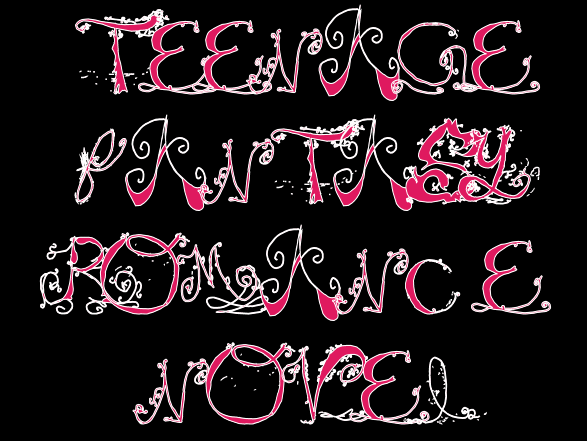
Font name: | Teenage Fantasy Romance Novel |
Author: | Hannah Summer |
Note by Hannah Summer | |
First font I've ever put out for distribution. Some of the letters didn't come out like I planned because, uh, I kinda went waaay off track. Please note that, the bigger the text, the fewer the characters, the better it looks! Not meant for typing paragraphs. Intended for art or site headers. ^^ Any questions or comments or whatever, feel free to contact me at 7andg.so-pink.org. |